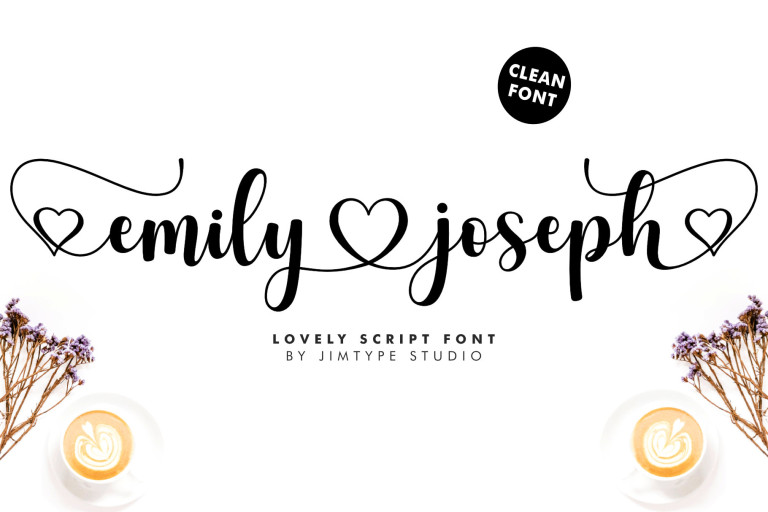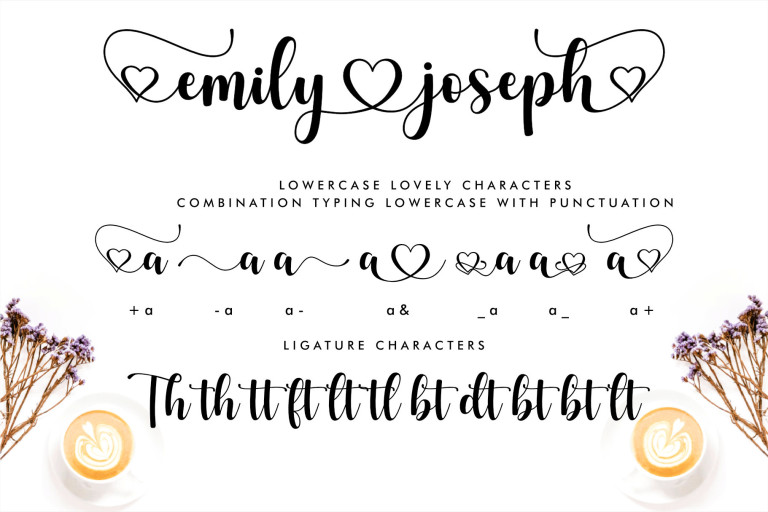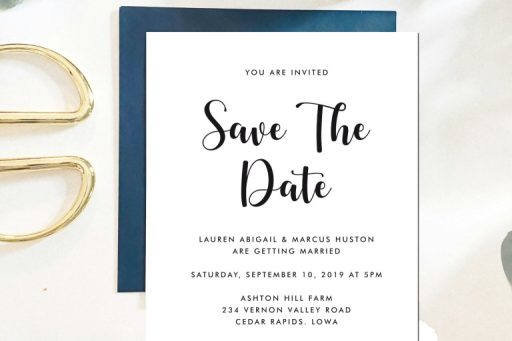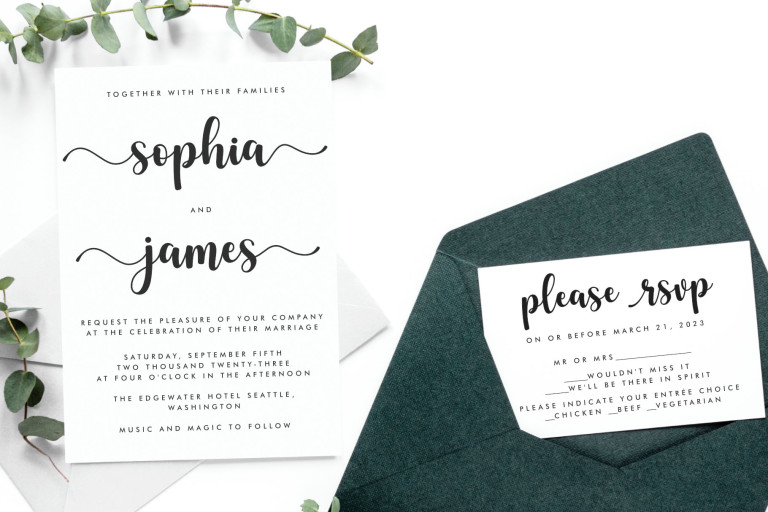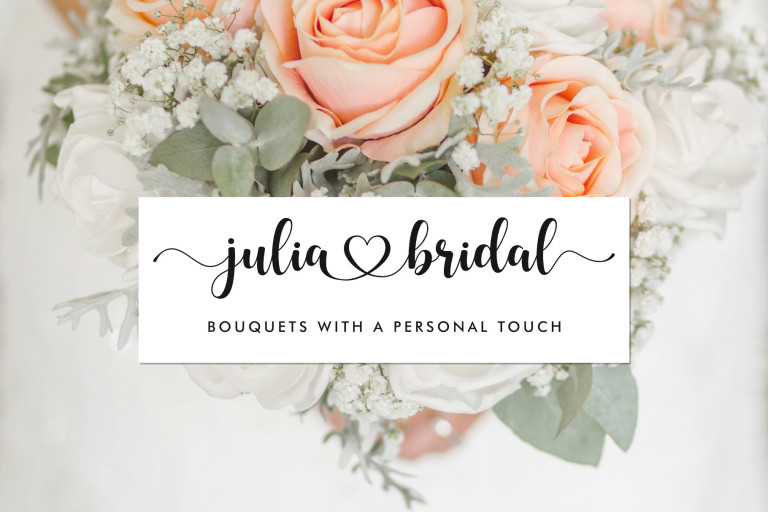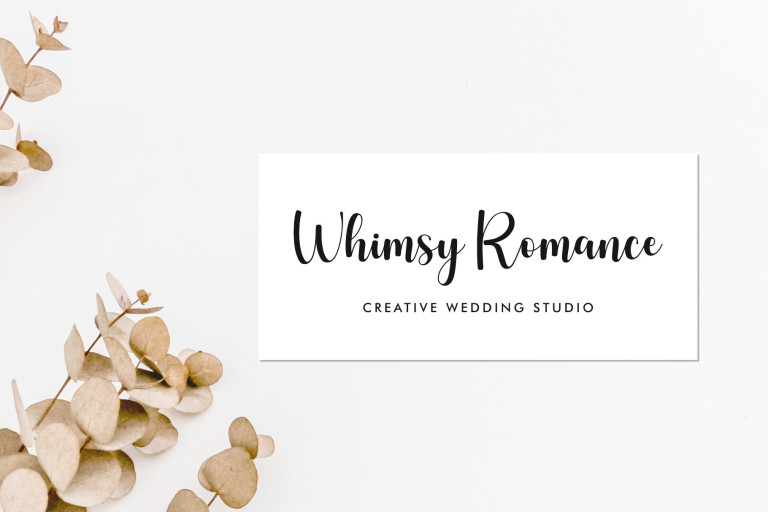
Emily Joseph - Wedding Branding Font from Jimtype Studio
Emily Joseph
Emily Joseph – Wedding Branding Font from Jimtype Studio
A new font for those of you who want your name engraved with a heart. Emily Joseph is a script font with subtle heart curves, clean lines, and a refined font. Designed to connect the letters with a natural heart while maintaining a feminine character.
This beautiful script font is perfect for wedding invitations or engraving your and your partner’s names as a keepsake. It can also be used for logos, branding, watermarks, save-the-date cards, and feminine branding.
Use the following combos for :
lowercase heart connect
type: a& (lowercase letter ampersand)
For example: amelia&amanda
lowercase beginning and ending swash
type: -a or a- (hyphenminus lowercase letter or lowercase letter hyphenminus)
For example: -amelia- -amanda-
lowercase beginning and ending swash with heart
type: _a or a_ (underscore lowercase letter or lowercase letter underscore)
For example: _amelia_ _amanda_
lowercase beginning and ending swash with heart
type: +a or a+ (plus lowercase letter or lowercase letter plus)
For example: +amelia+ +amanda+
You can also combine swash beginning and ending with heart connect, with a combo
For example: -amel&lia-
(hyphenminus lowercase letter ampersand lowercase letter)
• Swashes heart connections
• Beginning and ending swashes characters